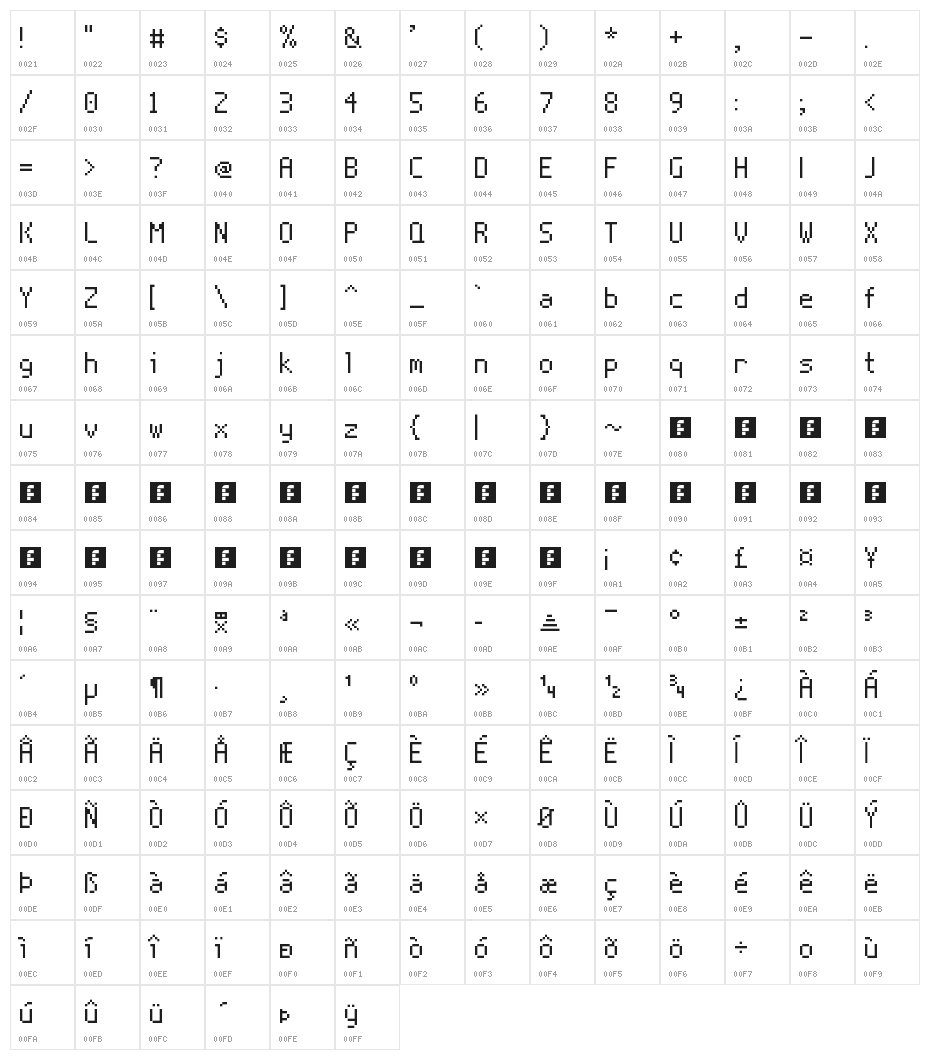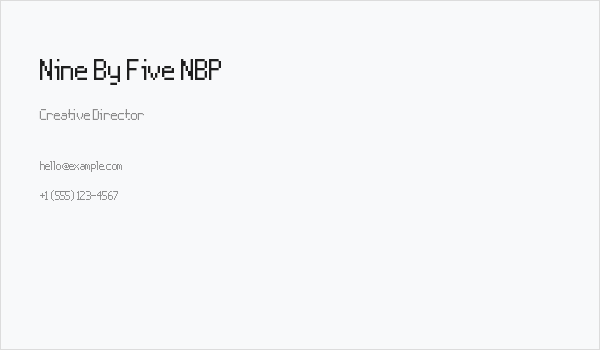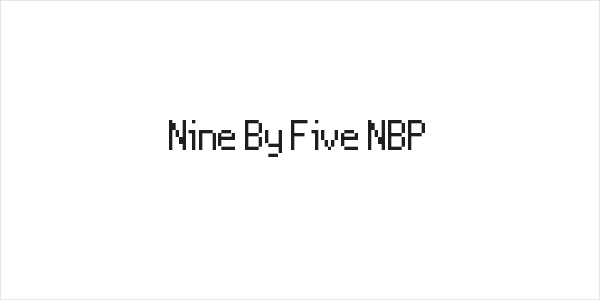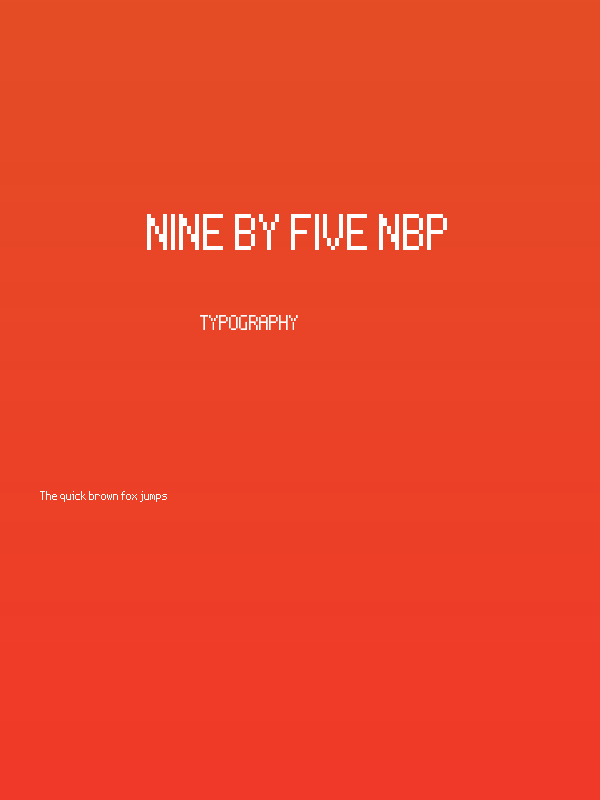
Nine By Five NBP Font
Nine By Five NBP Description
This font features a pixelated, grid-like structure reminiscent of early digital displays and video games. Each character is composed of a series of square blocks, creating a uniform and monospaced appearance. The design is simplistic yet effective, capturing a retro aesthetic that is both nostalgic and functional. The uppercase and lowercase letters maintain a consistent height, while the numerals and special characters are crafted with the same pixelated precision. This font is ideal for projects that require a vintage digital look or a playful, tech-inspired theme.
| Use Case | Logos, Digital displays, Video games |
| Proposed Projects | Ideal for video game design, retro-themed graphics, digital art, and tech-inspired branding. |